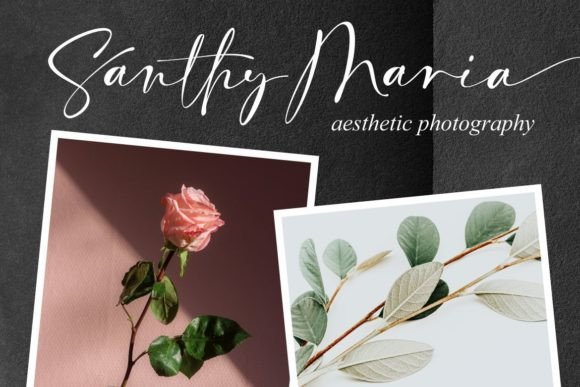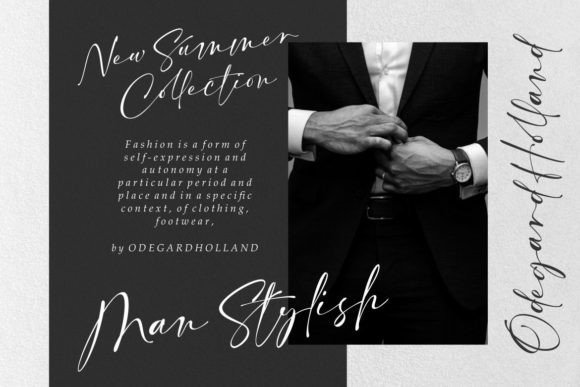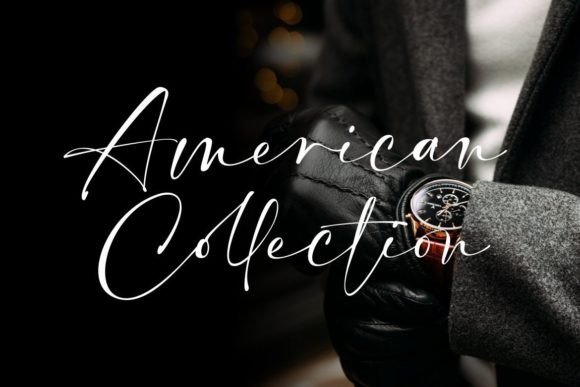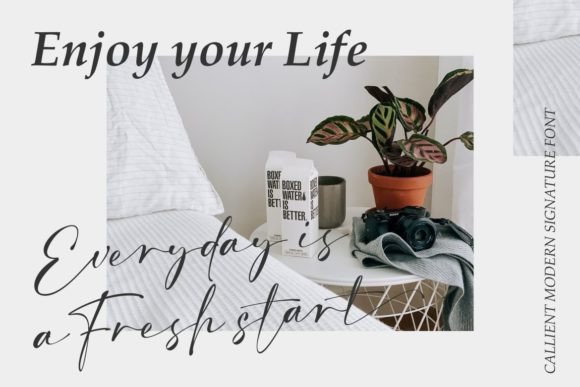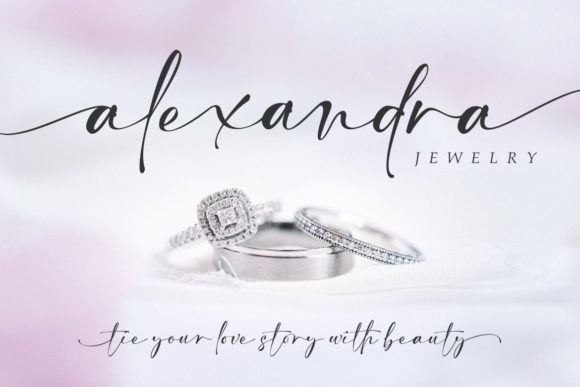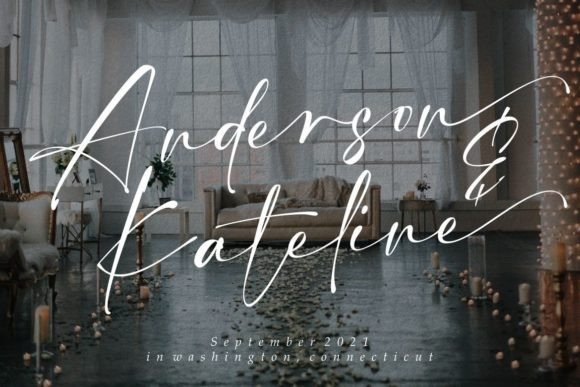
The Designer’s Delight: Callient Font
I’ll never forget the time I was working on a branding project for a luxury wedding planner, and I just couldn’t find the perfect font to capture the essence of their high-end events. The client was specific about wanting something modern, elegant, and highly customizable. That’s when I stumbled upon the Callient Font, and it was love at first sight! 💕
As a designer, I’ve worked with countless fonts, but Callient quickly became my go-to for projects that require a touch of sophistication and flair. In this article, I’ll share my honest review, a step-by-step guide on how to use it, and some valuable insights into this stunning modern signature font.
An Honest Review of Callient Font
- 💯 Modern and elegant design: Callient is perfect for creating stunning branding, invitations, and social media posts that require a touch of luxury.
- ✅ PUA encoded for easy access: The font comes with PUA encoding, making it easy to access all glyphs and swashes without any hassle.
- 🎨 Highly customizable: With a range of stylistic alternates, glyphs, and swashes, you can experiment with different looks to match your design style.
- 📚 Multipurpose: Use Callient for a variety of projects, including photography, quotes, watermarks, advertisements, product designs, and more!
While Callient is an amazing font, there are a few things to keep in mind:
- 🤔 Some characters may require manual kerning: As with any font, you might need to adjust the kerning for certain character combinations to achieve the perfect look.
- ⚠️ Not suitable for body text: Due to its elegant and cursive nature, Callient is best used for headlines, titles, or short paragraphs, rather than lengthy body text.
The Story Behind Callient Font
Callient was designed with the modern creative in mind. Its creator aimed to craft a font that would be both elegant and versatile, suitable for a range of projects. The result is a stunning modern signature font that’s perfect for designers, crafters, and creative hobbyists.
A: PUA (Private Use Area) encoding allows you to access a range of glyphs and swashes without any additional software or plugins. This means you can easily customize your text and experiment with different styles.
Q: Is Callient suitable for body text?
A: While Callient is an amazing font, it’s best used for headlines, titles, or short paragraphs. Its elegant and cursive nature makes it less suitable for lengthy body text.